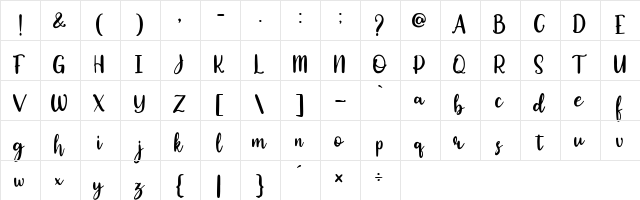
Okuland Regular
Design Context for Okuland Typeface
Okuland is a composed and adaptable typeface that performs quietly and consistently across a wide range of design contexts.